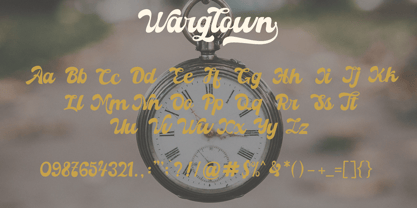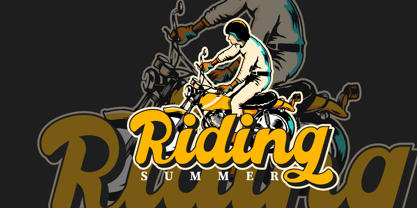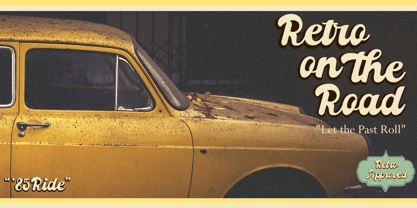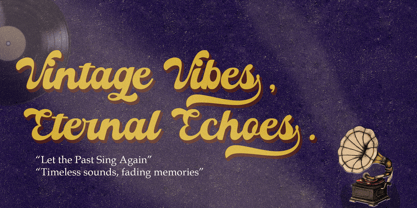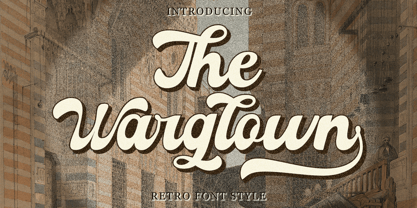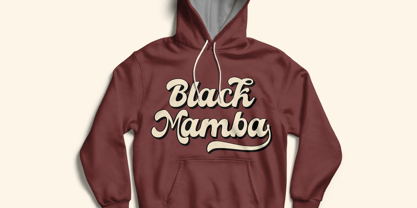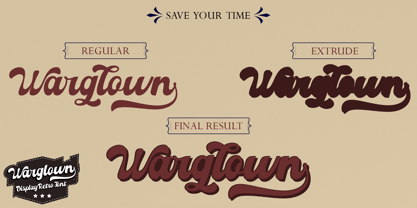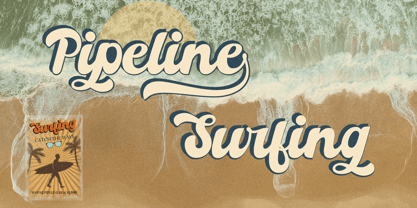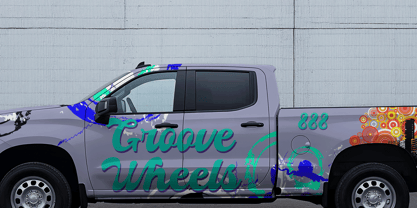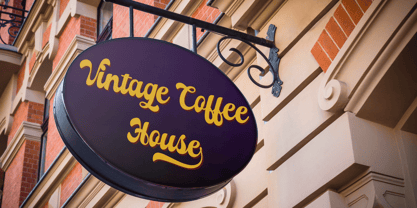
Warglown
The Warglown Font Family was designed by Rizki Ramadhan and published by Trick Type Style. Warglown contains 2 styles and family package options. More about this family
Warglown is a retro script font that blends classic nostalgia with a fresh, modern touch, featuring smooth curves and bold strokes that exude elegance and character. Perfect for posters, logos, packaging, album covers, and vintage-themed typography, Warglown brings a warm yet vibrant charm to any design. With harmoniously connected letters and excellent readability, this font is ready to give your creative projects a truly timeless appeal.